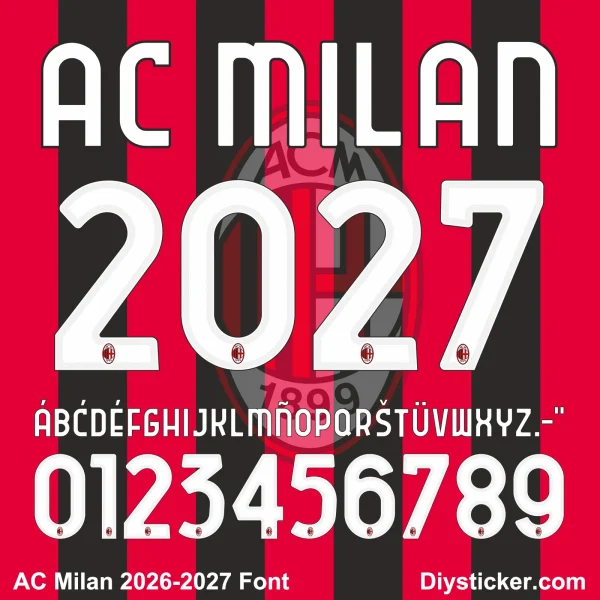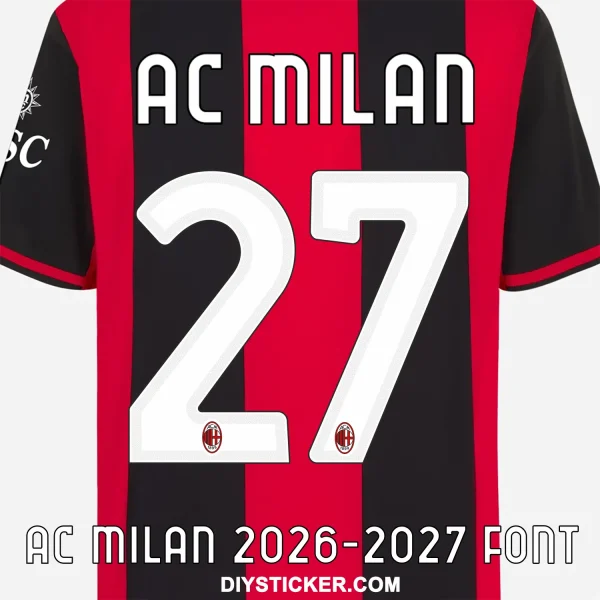
Download the officially styled AC Milan font 2026/2027 for your creative projects. Whether you’re designing a custom jersey, fan poster, or digital artwork, this font pack delivers the exact lettering used by the Rossoneri for the 2026/2027 season.
Font Character Set
Includes full uppercase A-Z, numbers 0-9, and basic punctuation as shown on the official AC Milan 2026-2027 jersey style.
Is this the official AC Milan font?
This is a high-quality digital recreation based on the 2026-2027 AC Milan jersey lettering. It is not an official product of AC Milan but is designed to match the style.